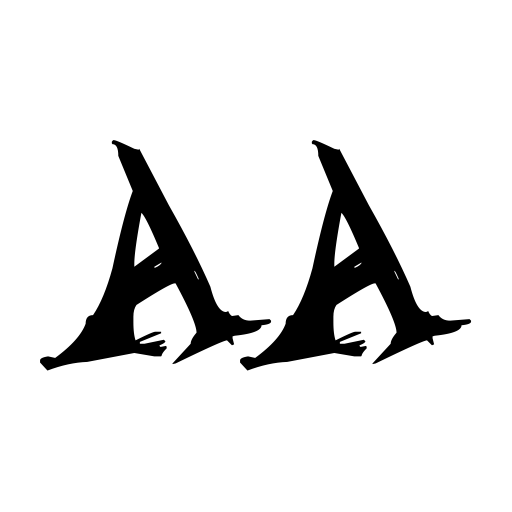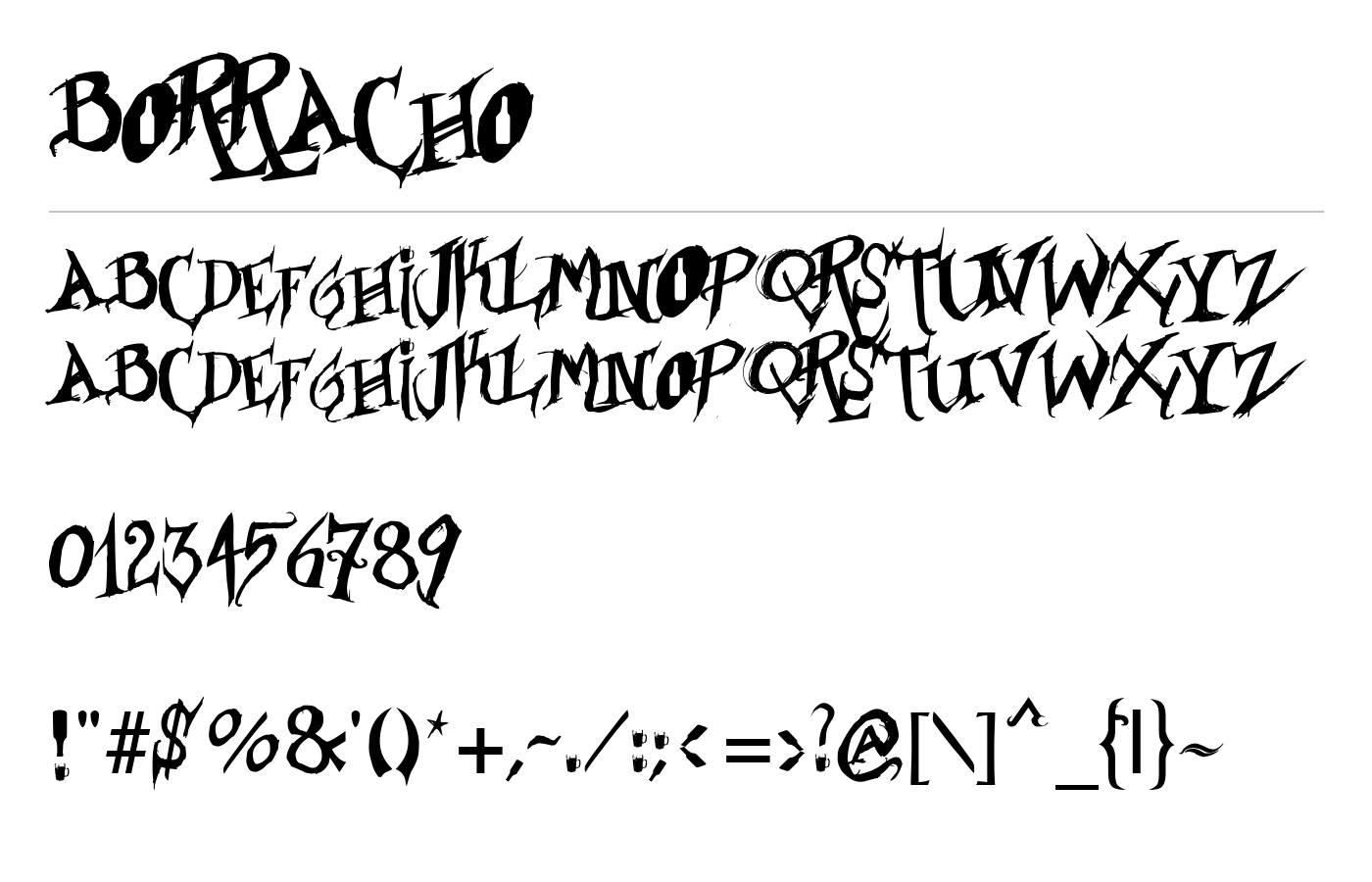
Borracho is a bold, jagged display font with a chaotic, hand-drawn style that combines sharp, irregular strokes and dramatic angles. Its uppercase characters have an aggressive, energetic personality, making it ideal for edgy, rebellious branding, posters, or any design seeking a raw, expressive vibe. This font works best in headlines or titles where a striking, unconventional look is desired.
Borracho Font
About Borracho Font
| Font family | Borracho Font |
| Designer | (c) Juan Casco |